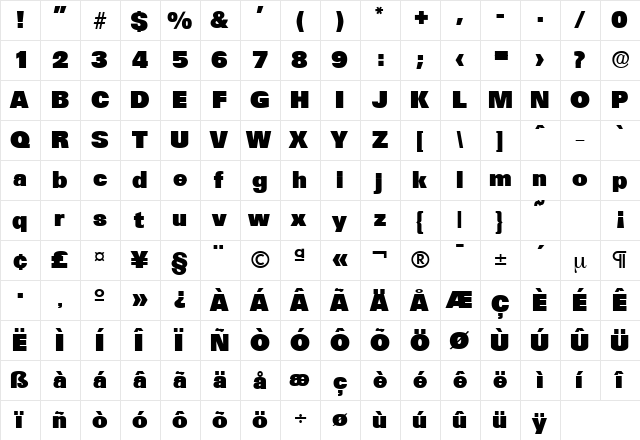
Ultimate-Serial-Heavy Regular
Design Context for Ultimate-Serial-Heavy Typeface
Ultimate-Serial-Heavy offers clean, dependable letterforms without strong stylistic allegiance, making it a practical choice for designers who need flexibility.